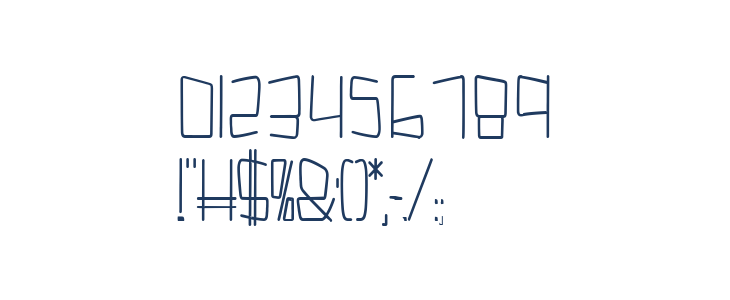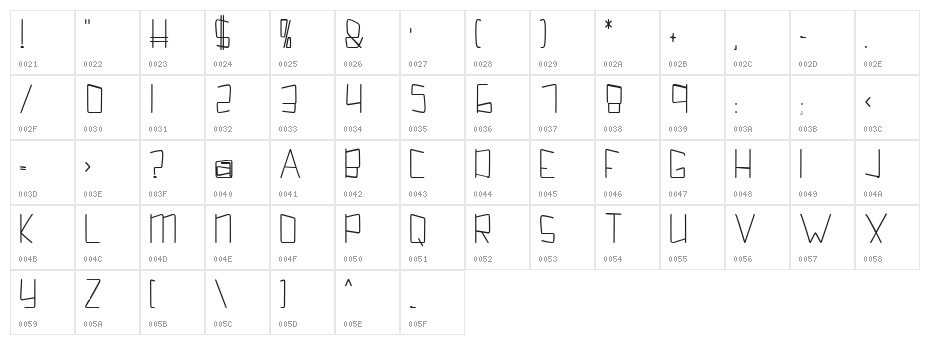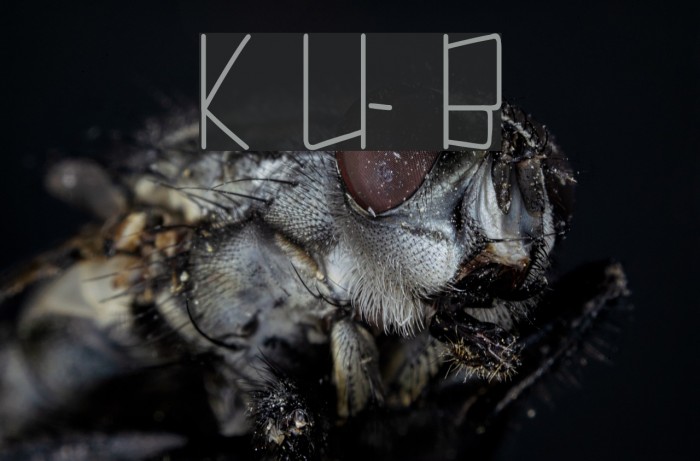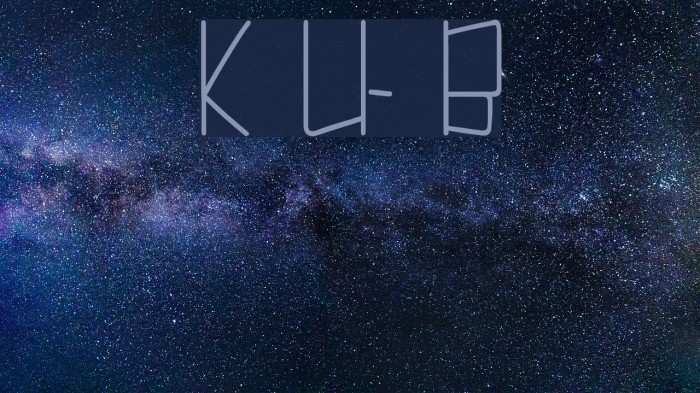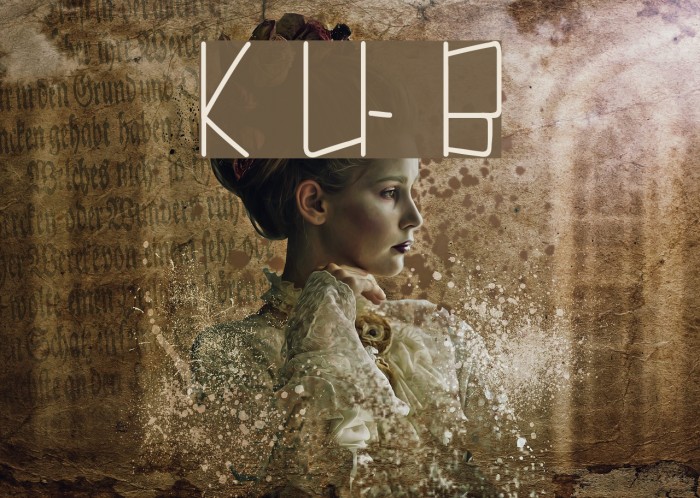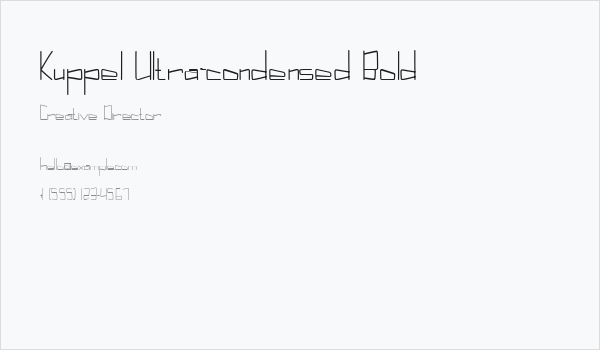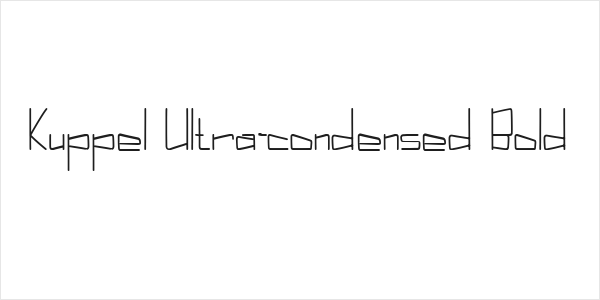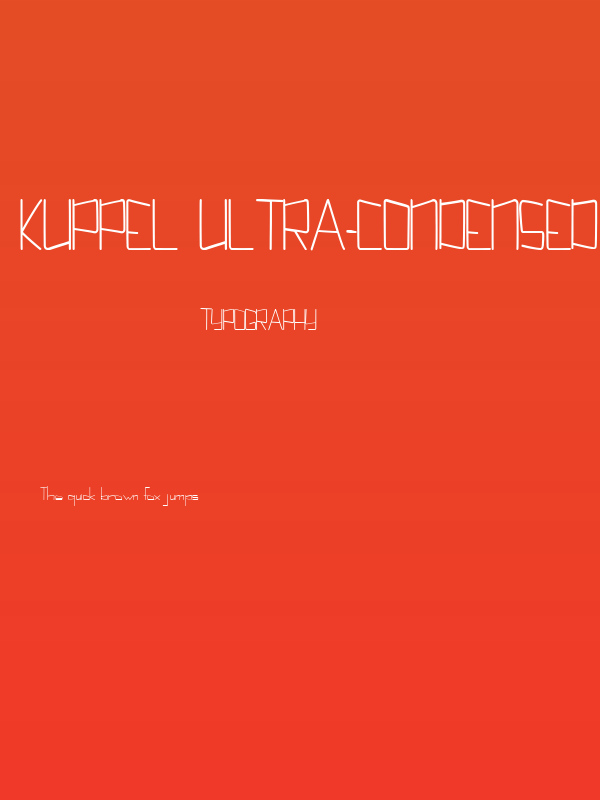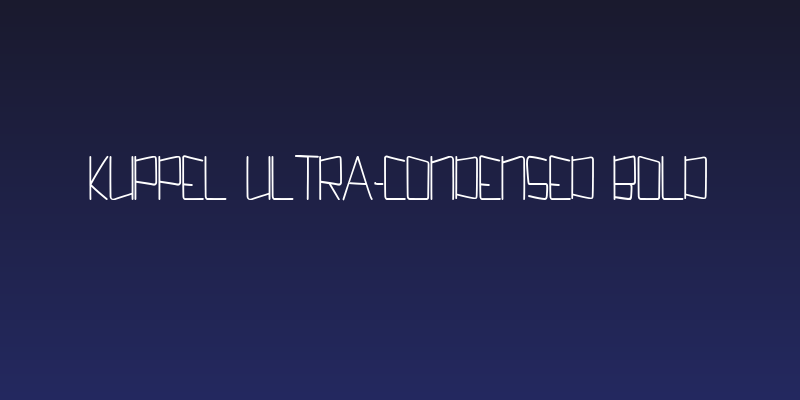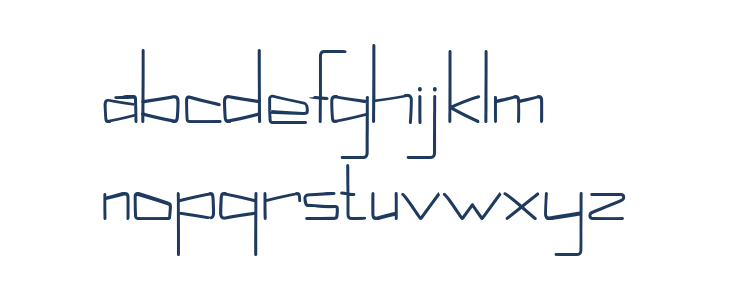
Kuppel Ultra-condensed Bold Font
Kuppel Ultra-condensed Bold Description
This font features an ultra-condensed, geometric design with a bold presence. The characters are composed of straight lines and sharp angles, giving it a modern and minimalist appearance. The uppercase and lowercase letters maintain a consistent height, contributing to its uniform look. The numerals and special characters follow the same linear style, ensuring cohesion across all elements. Its unique structure makes it stand out, while the condensed form allows for efficient use of space.
Proposed ProjectsIdeal for modern branding, futuristic designs, posters, and digital interfaces where space is limited.